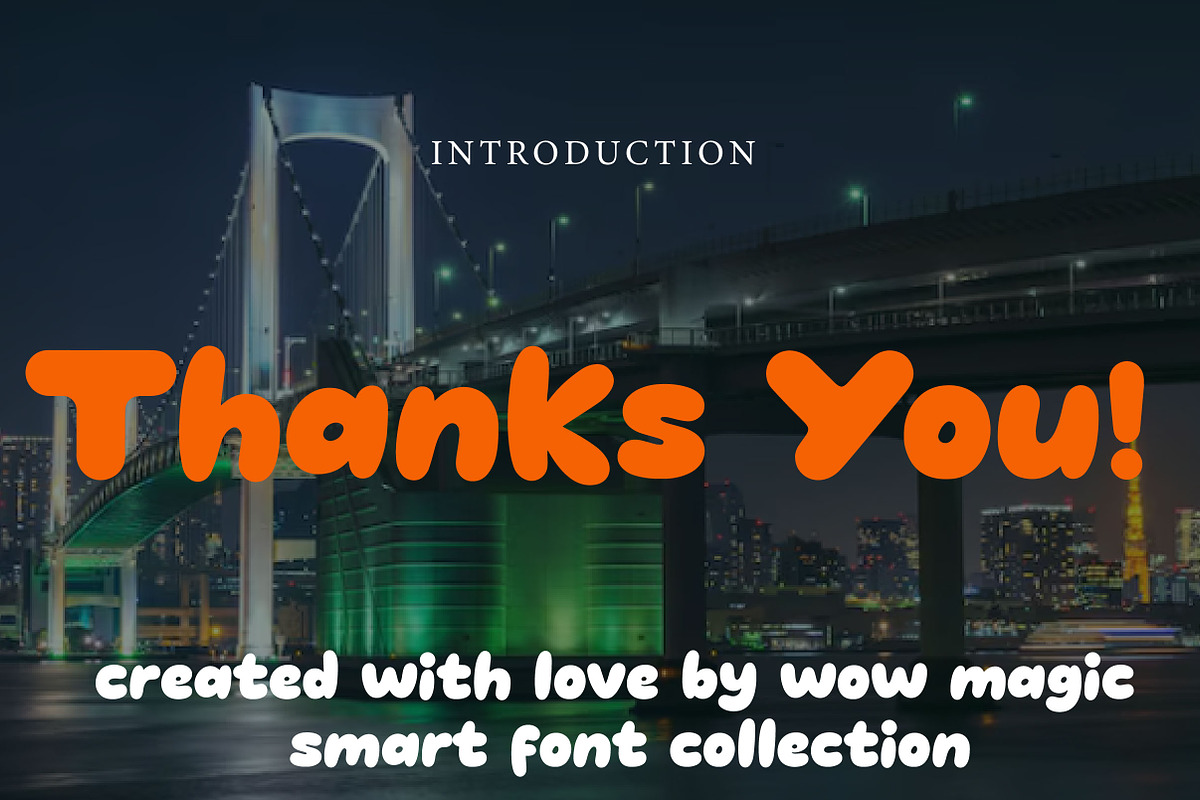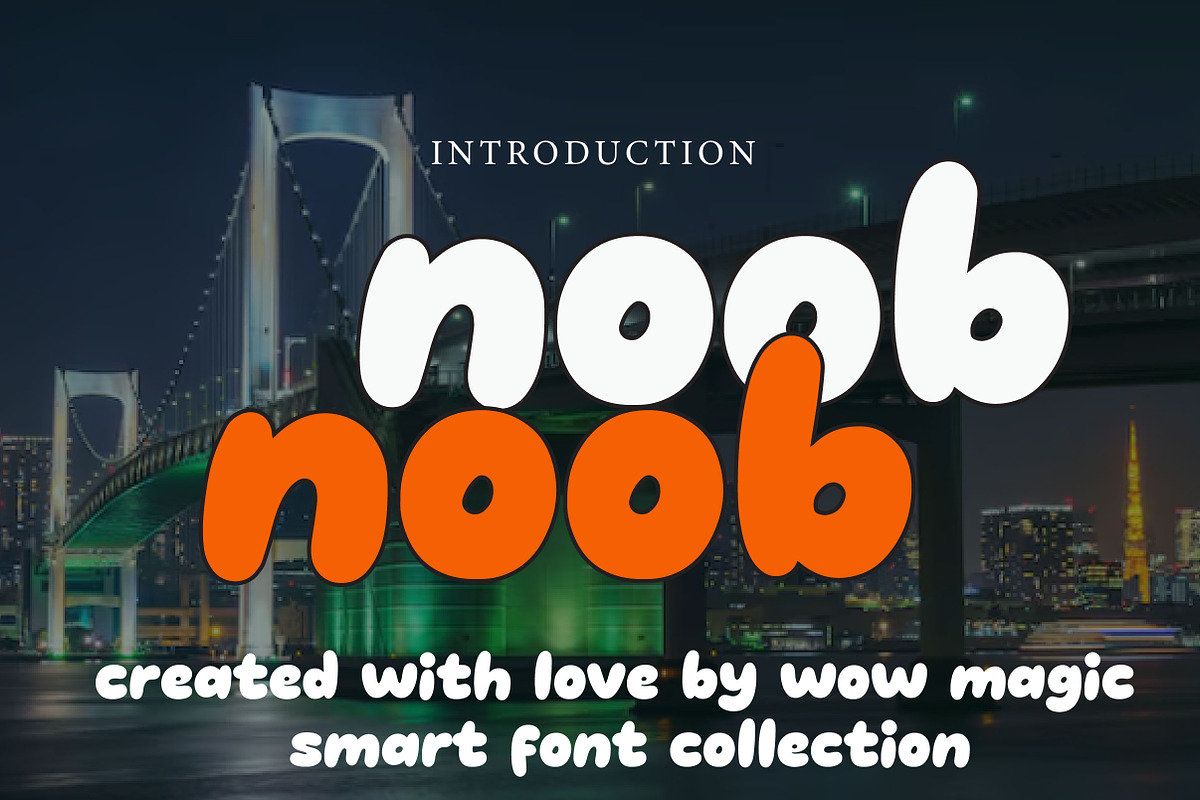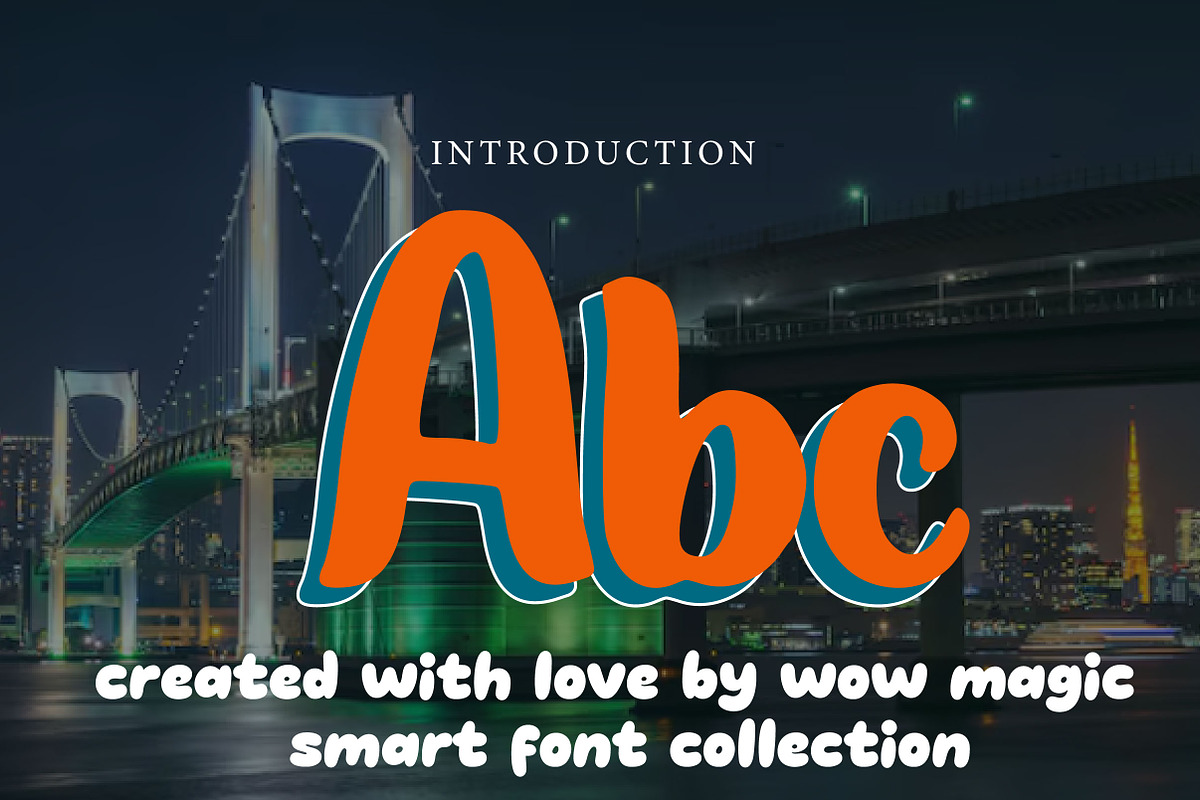
Noob
Noob – Cute Bold Bubble Display Font
Noob is a cute, bold, and playful bubble display font perfect for kids designs, gaming graphics, branding, packaging, posters, and fun creative projects.
Noob is a fun and chunky bubble display font designed to make your typography look bold, friendly, and full of personality. With its rounded shapes, thick letterforms, and playful style, this font brings a cheerful and eye-catching vibe to any design.
Its soft and heavy character makes Noob a great choice for projects that need a cute, energetic, and memorable look. Whether you are creating kids branding, gaming graphics, toy packaging, birthday invitations, posters, social media content, or fun logo designs, this font helps your text stand out in a charming and expressive way.
The bold rounded structure gives Noob a modern cartoon-like feel that works beautifully for both print and digital projects. It is perfect for designers who want a typeface that feels playful, simple, and highly attention-grabbing.
Perfect For Kids branding Gaming graphics Toy packaging Birthday invitations Posters and flyers Social media graphics YouTube thumbnails Cute logos and headlines Stickers and labels Fun merchandise designs Font Features Uppercase letters Lowercase letters Numbers & punctuation Bold bubble style Rounded and playful shapes Cute and friendly appearance Perfect for display use